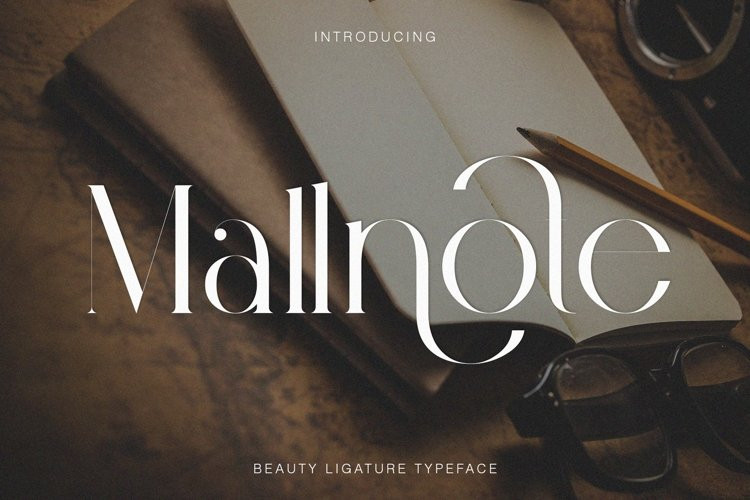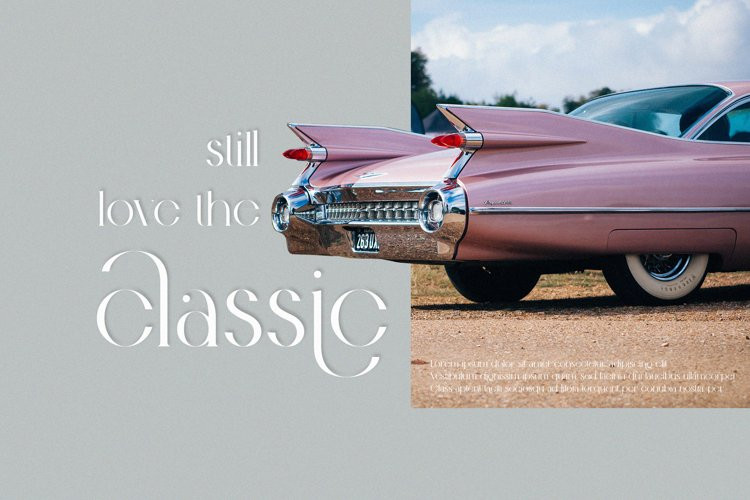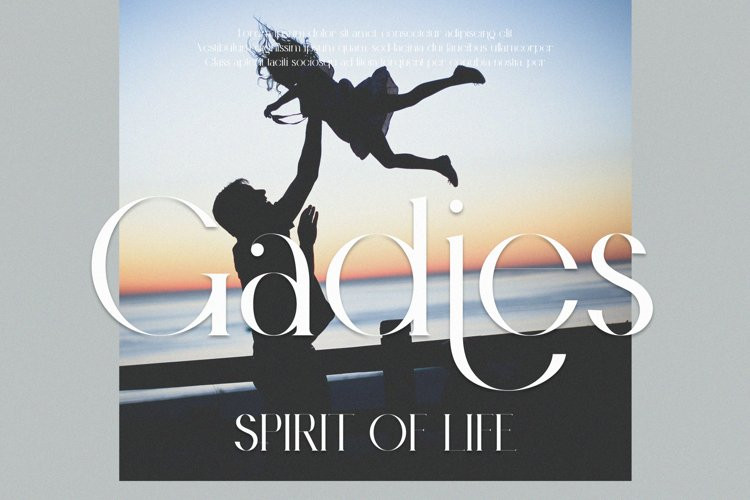
Mallnote Font
Mallnote FontMallnote is a elegant and classy serif typeface – This font is both modern and nostalgic and works great for logos, magazine, social media. Already matched up and ready to be used together for your next design! For those of you who are needing a touch of elegant, stylish, classy, chic and modernity for your designs, this font was created for you!
Mallnote was built with OpenType features and includes ligatures, numbers, punctuation, and it also supports other languages.